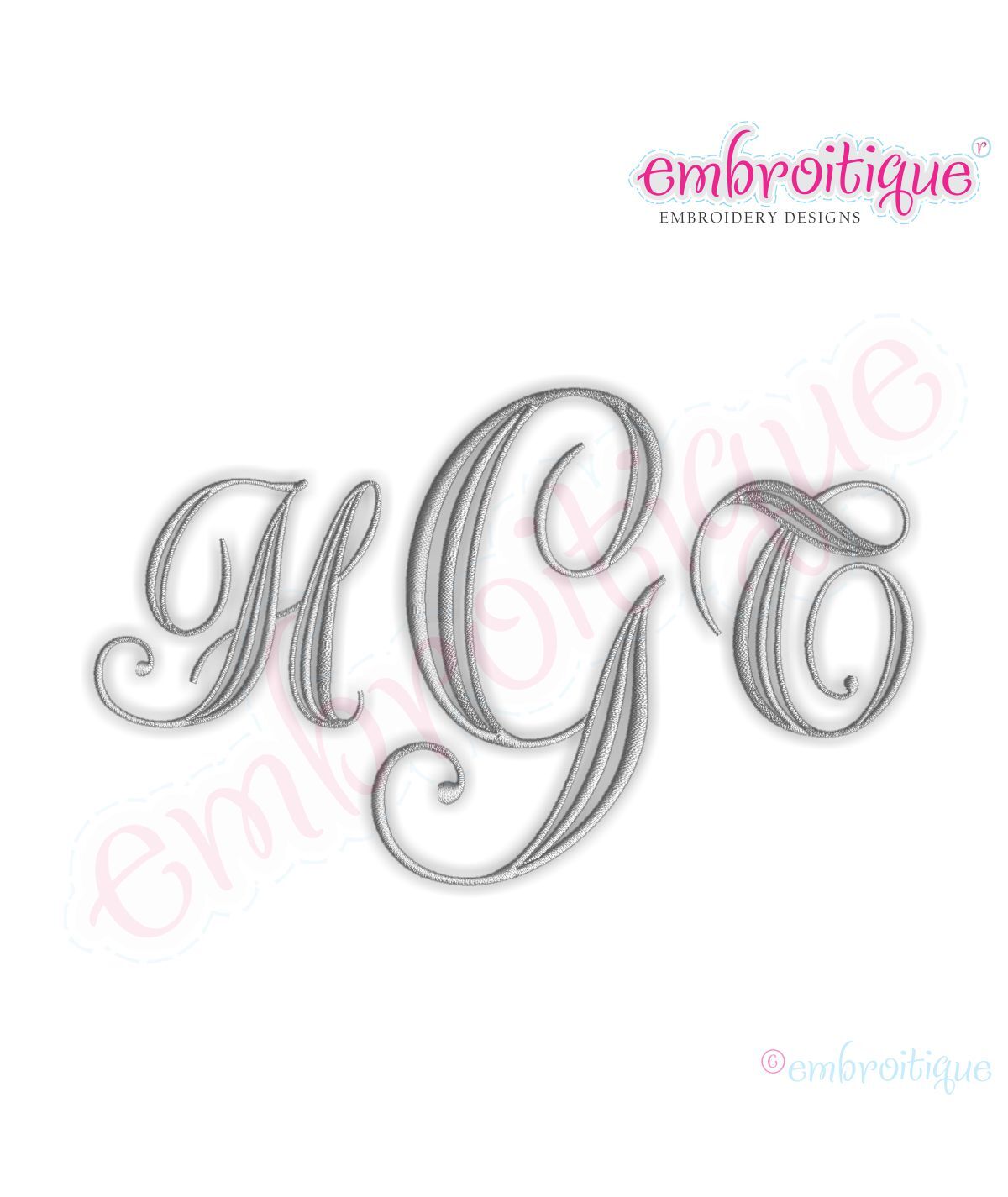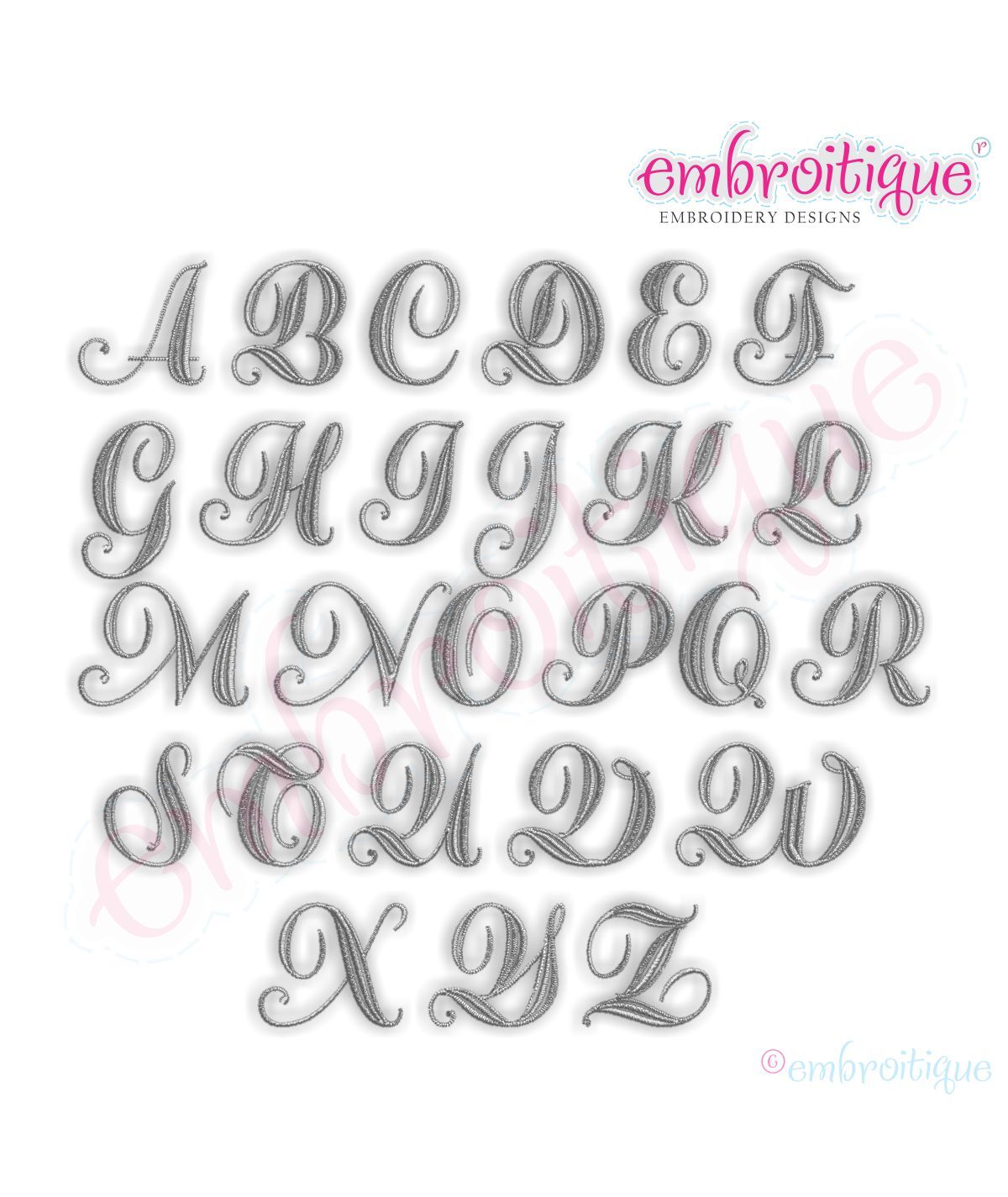
Penrose Monogram Font Set
This is such a beautiful set for single letter and monogram projects!  Each letter is an individual file that you can use to build monograms and personalized designs.